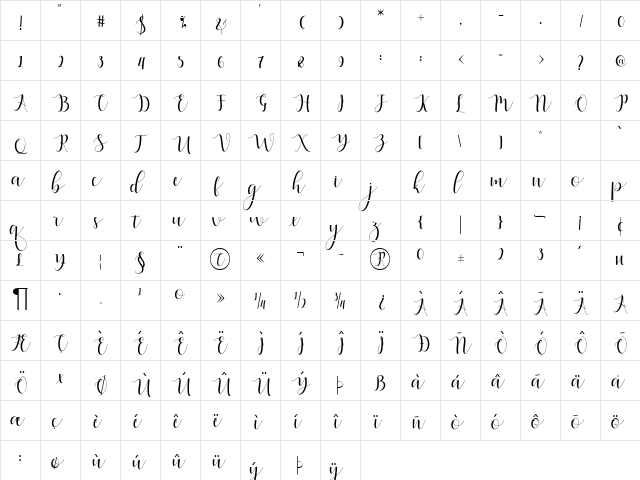
Qatielia Script Regular
Design Context for Qatielia Script Typeface
Qatielia Script brings a calligraphic fluidity to the page — its connecting strokes and expressive curves give it an unmistakably human quality.
Font Pairing: Combine Qatielia Script with a simple geometric sans for maximum contrast — the tension between flowing curves and clean structure is a classic typographic pairing.
Pro Tip: Pair Qatielia Script with a clean sans-serif for supporting text. The contrast between fluid script and geometric structure creates an elegant typographic hierarchy.